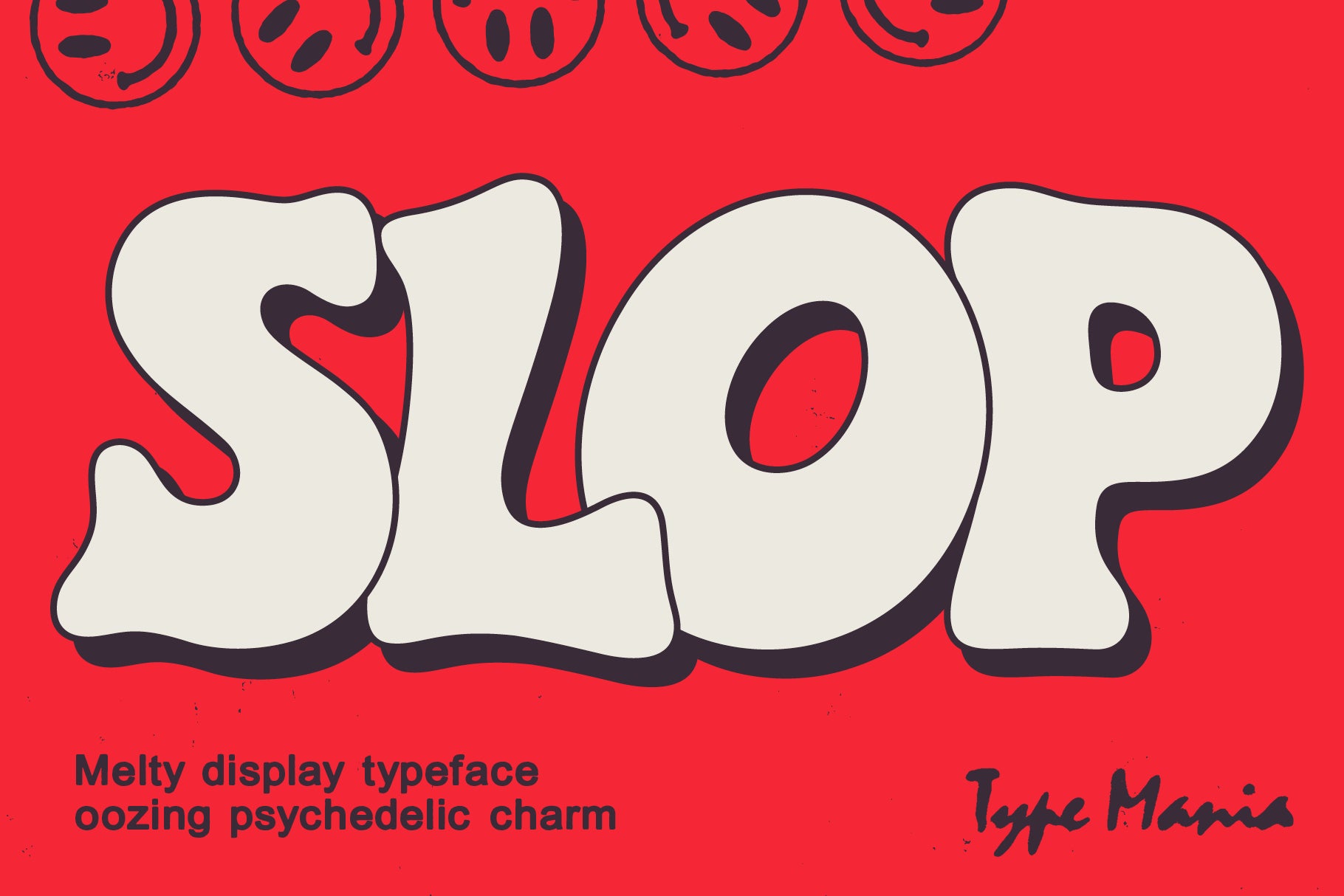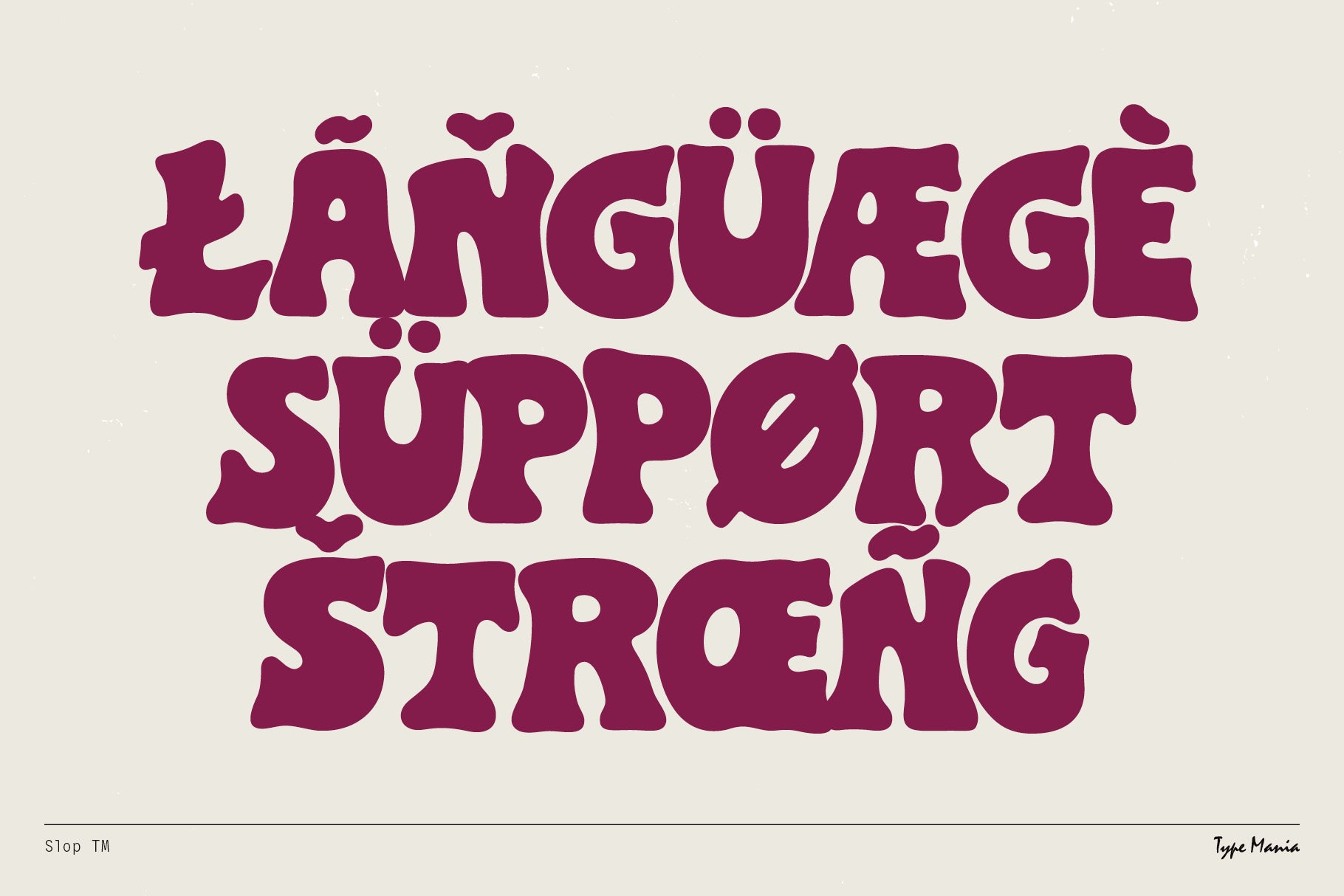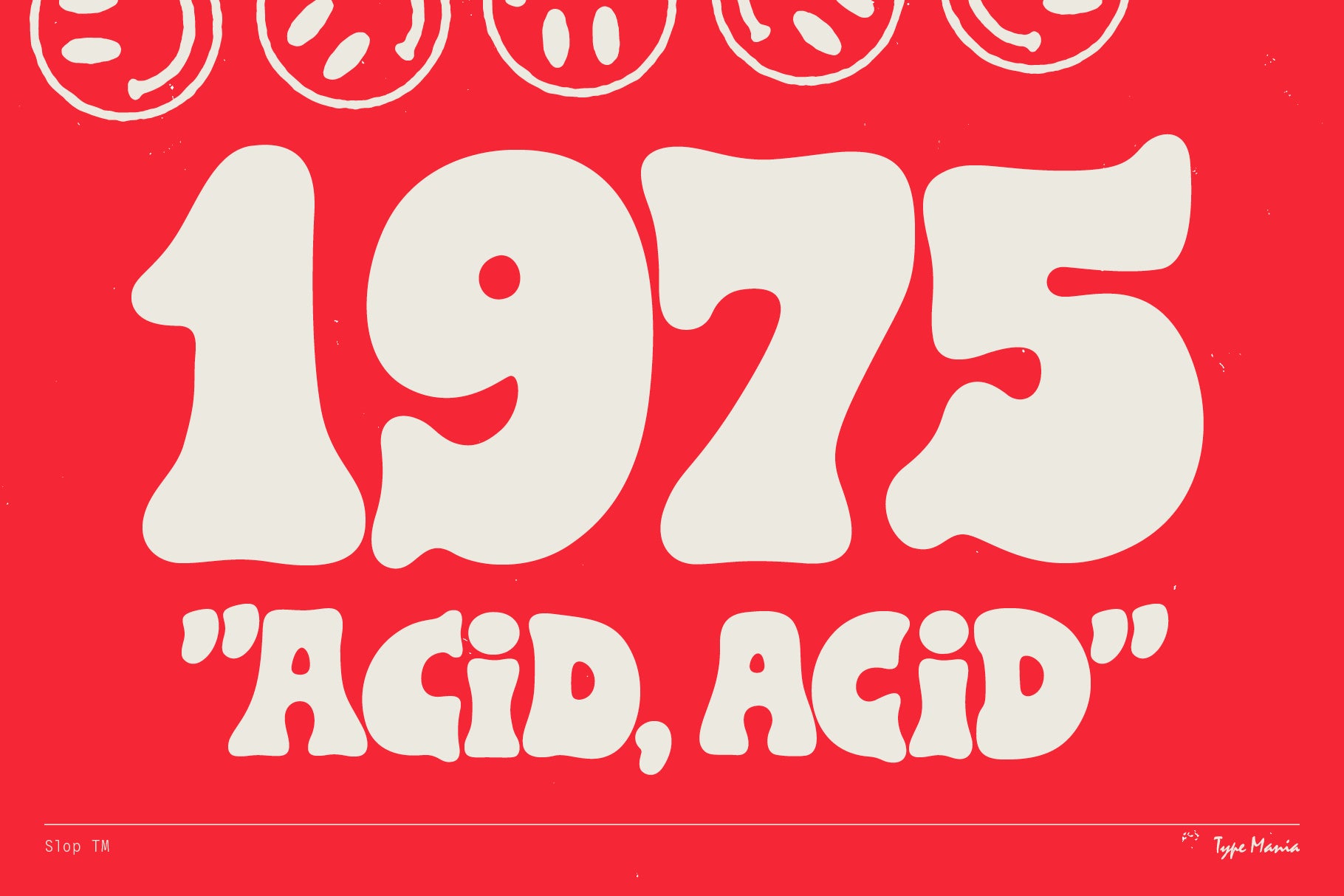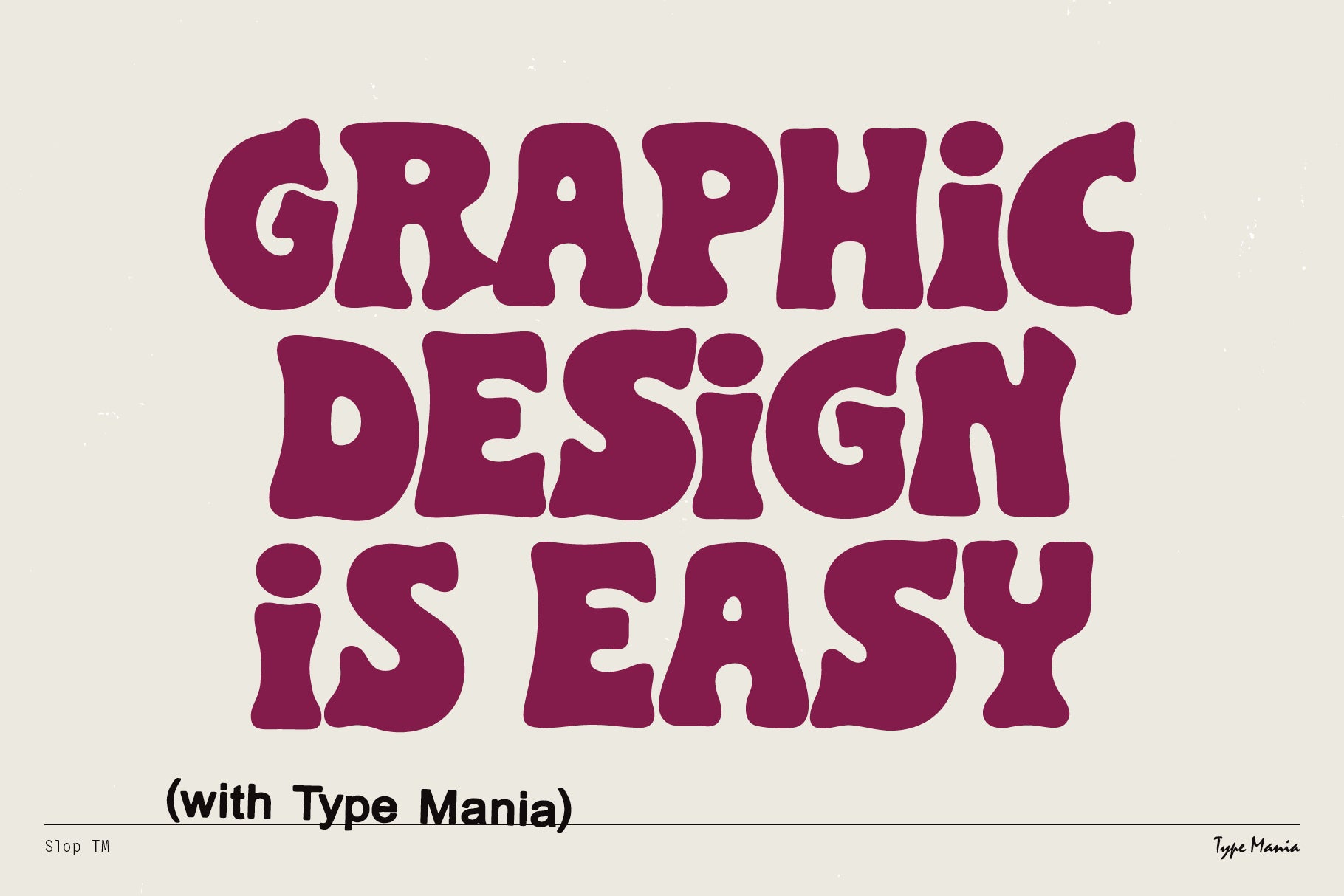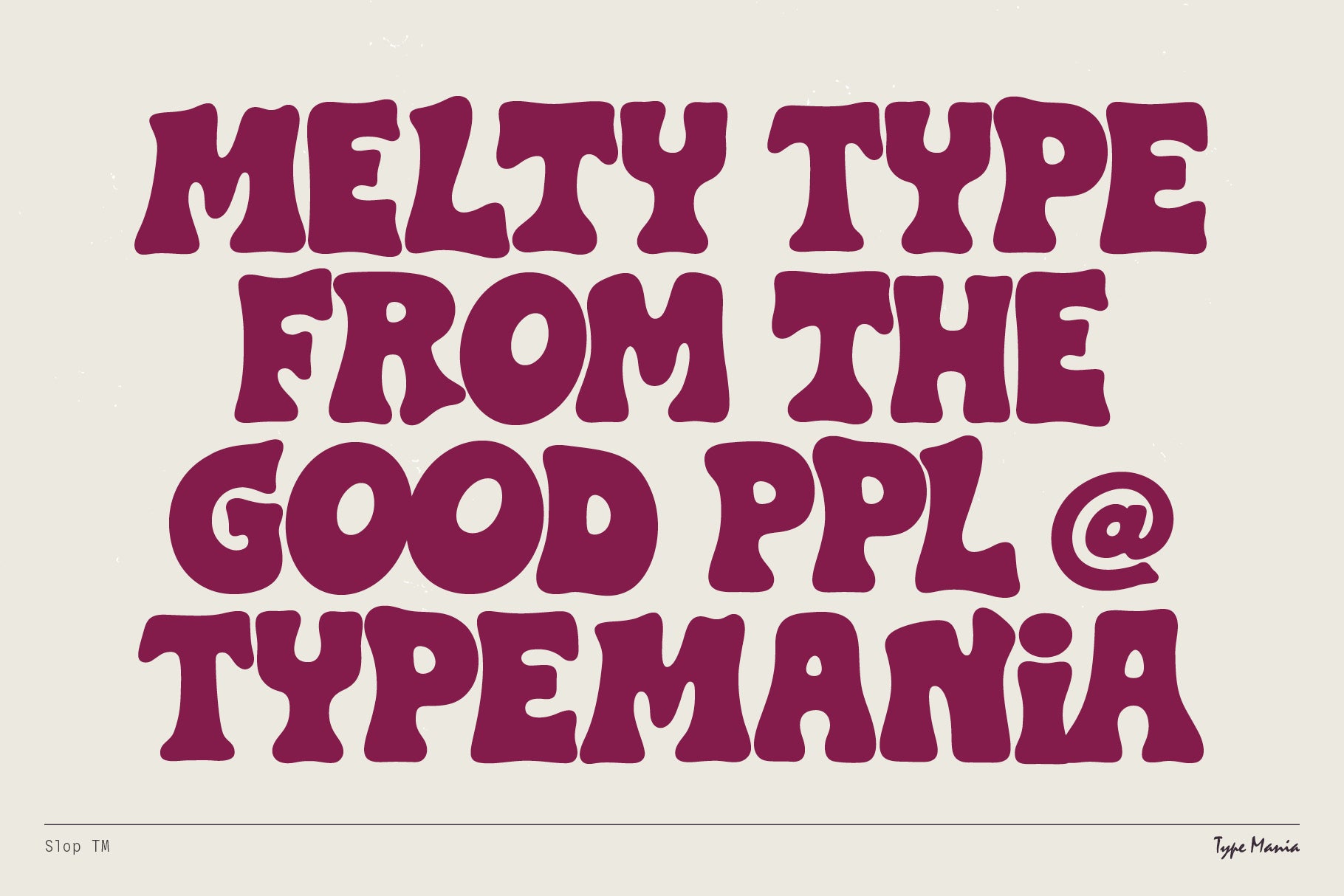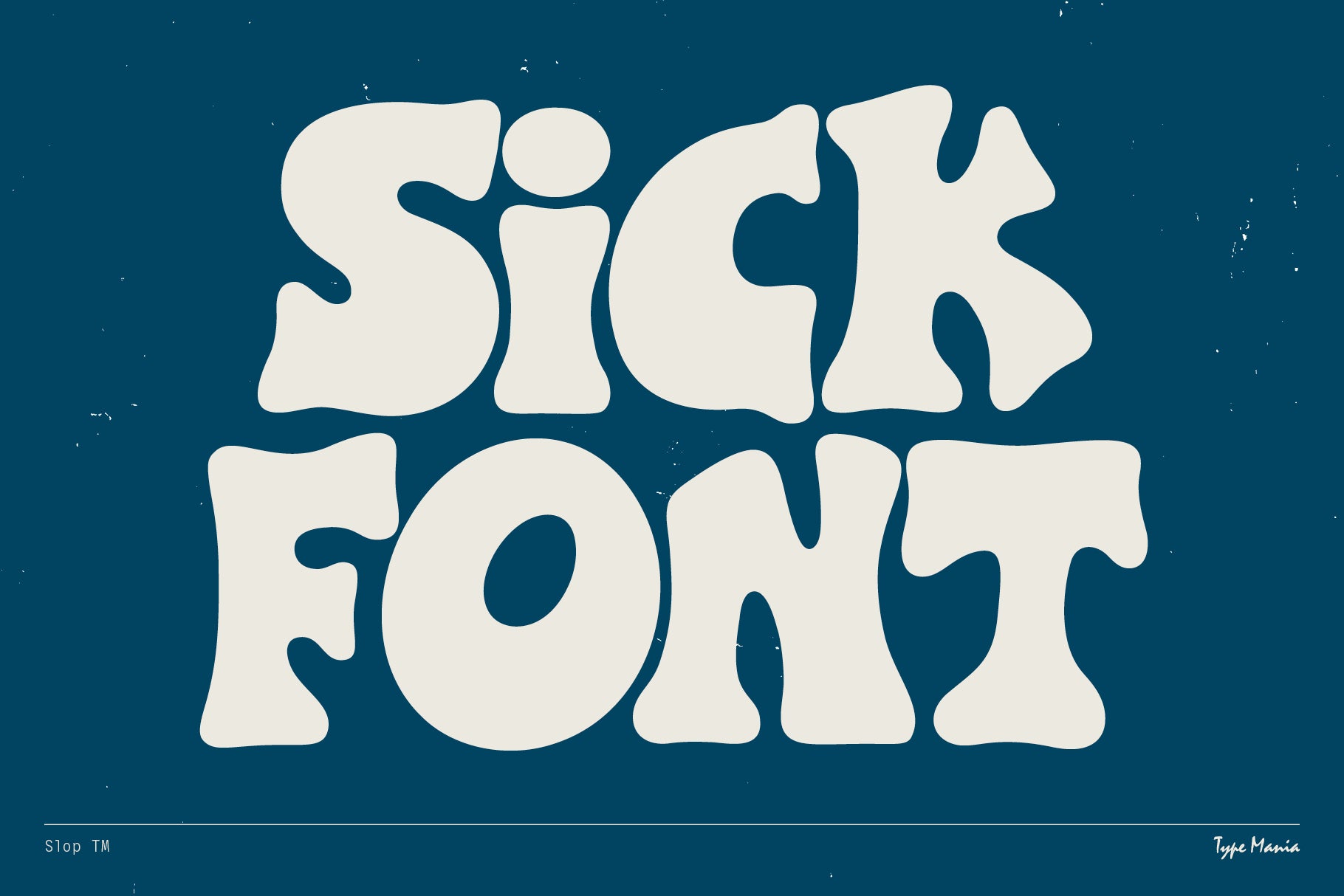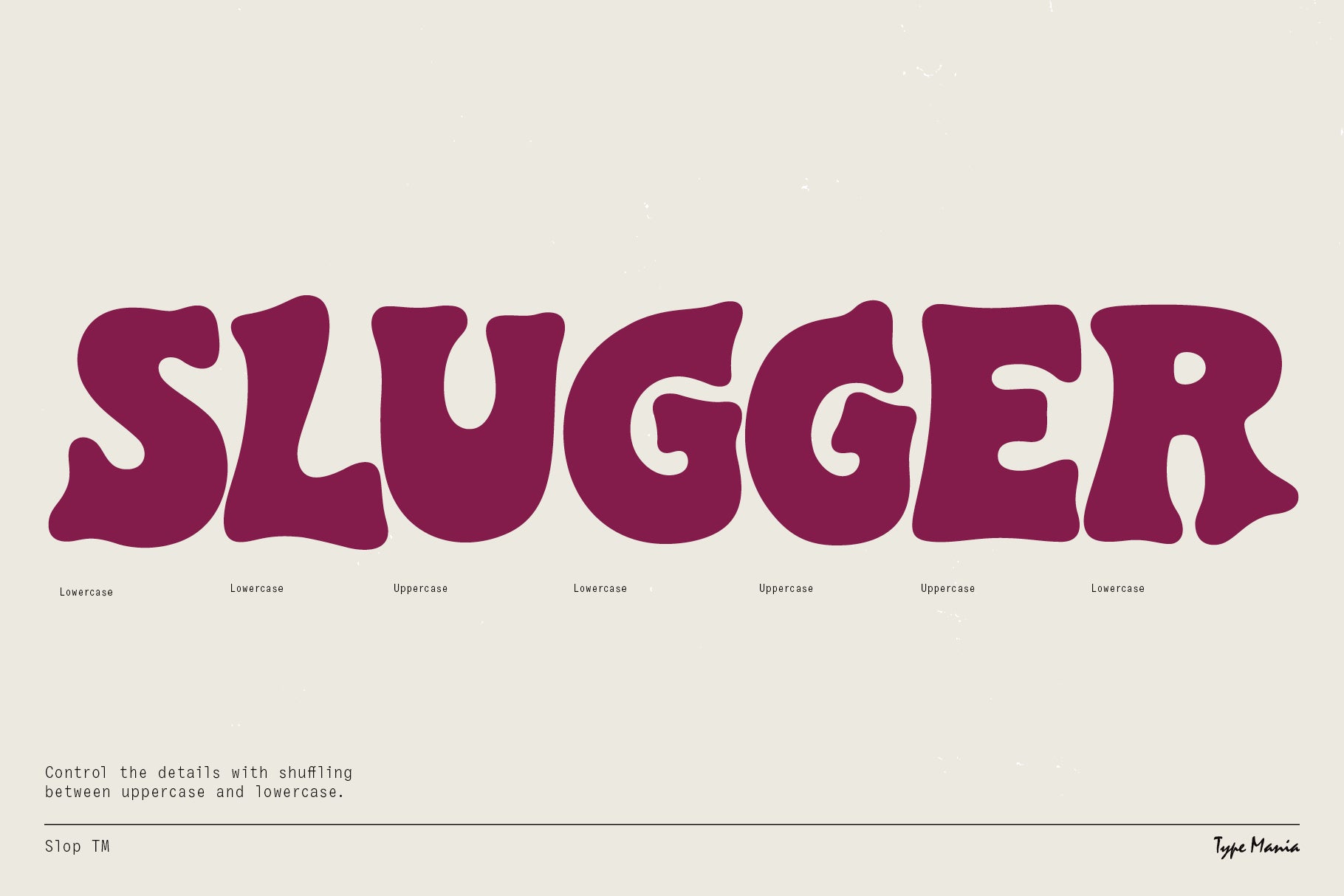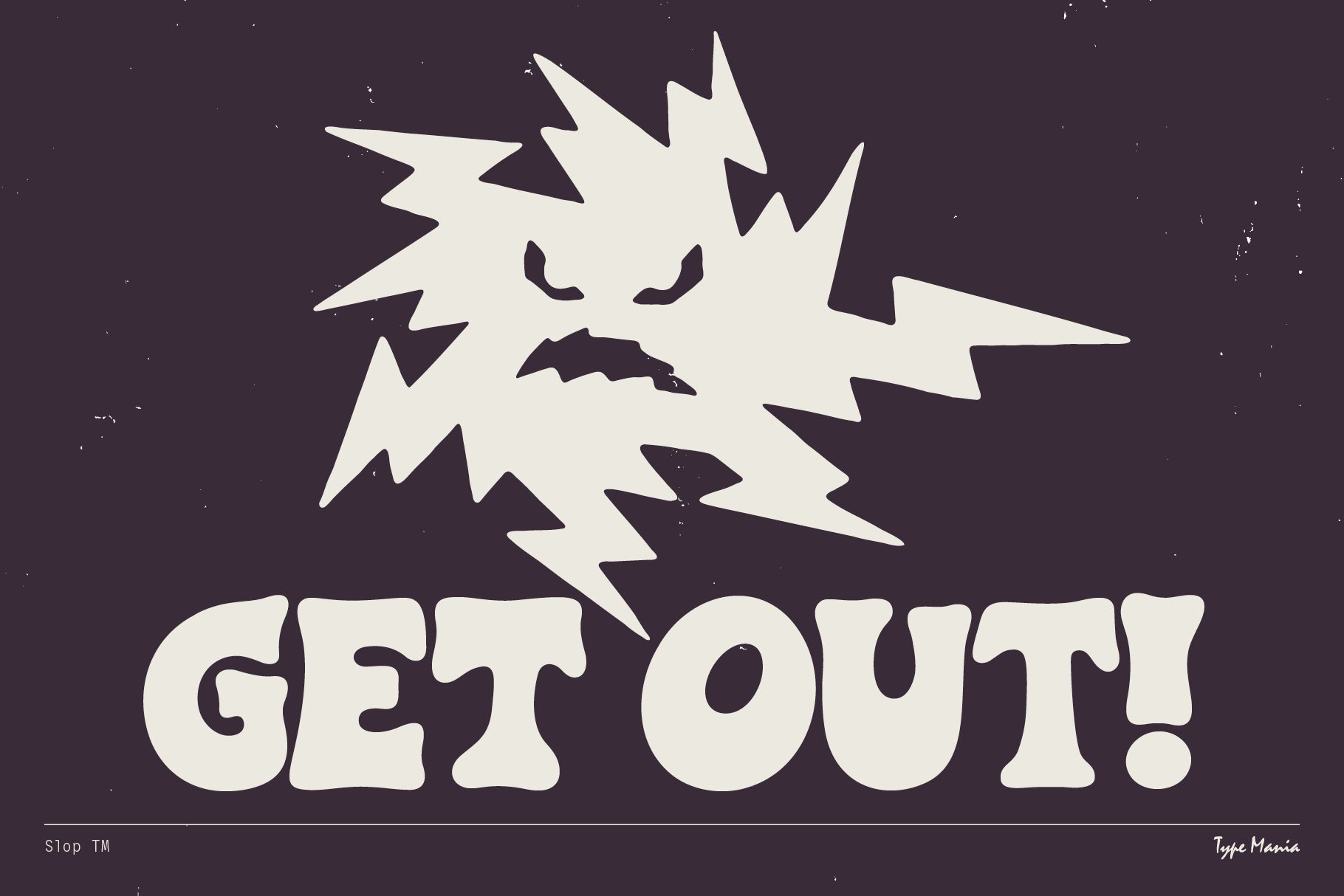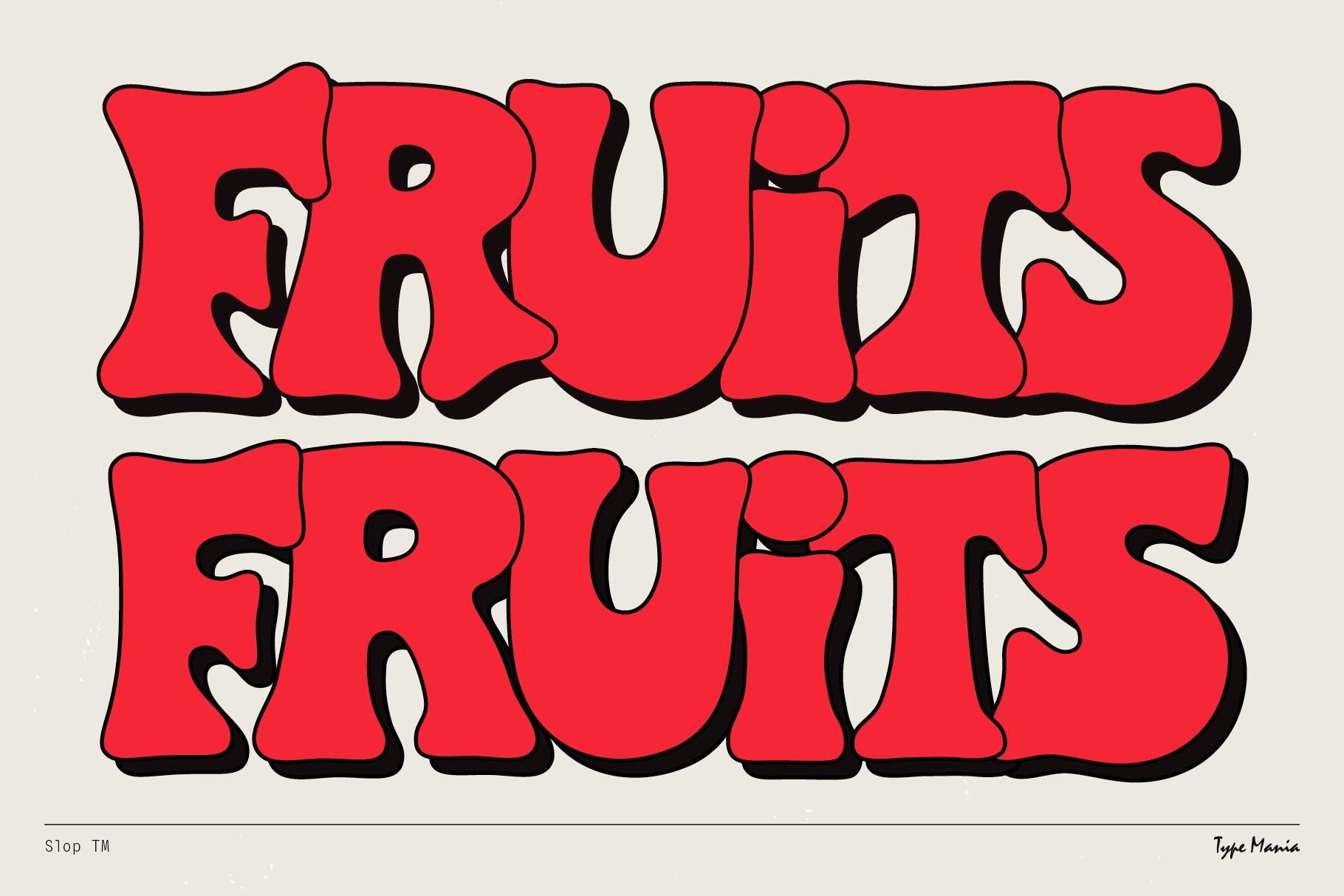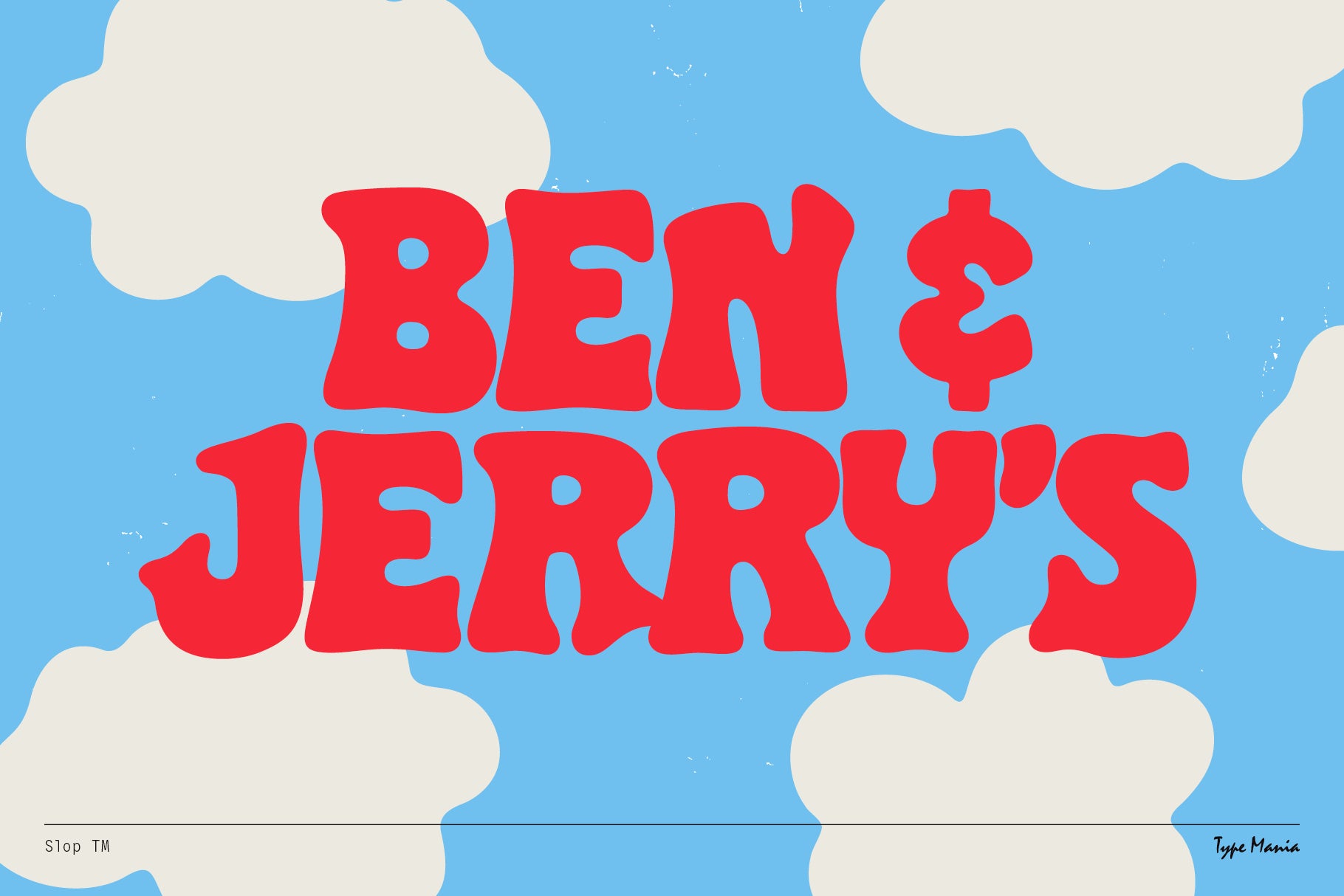
Slop TM created by Type Mania – a chunky, melty display typeface that oozes psychedelic charm. Built to stand out in posters, branding, and bold editorial work 🫡🫡